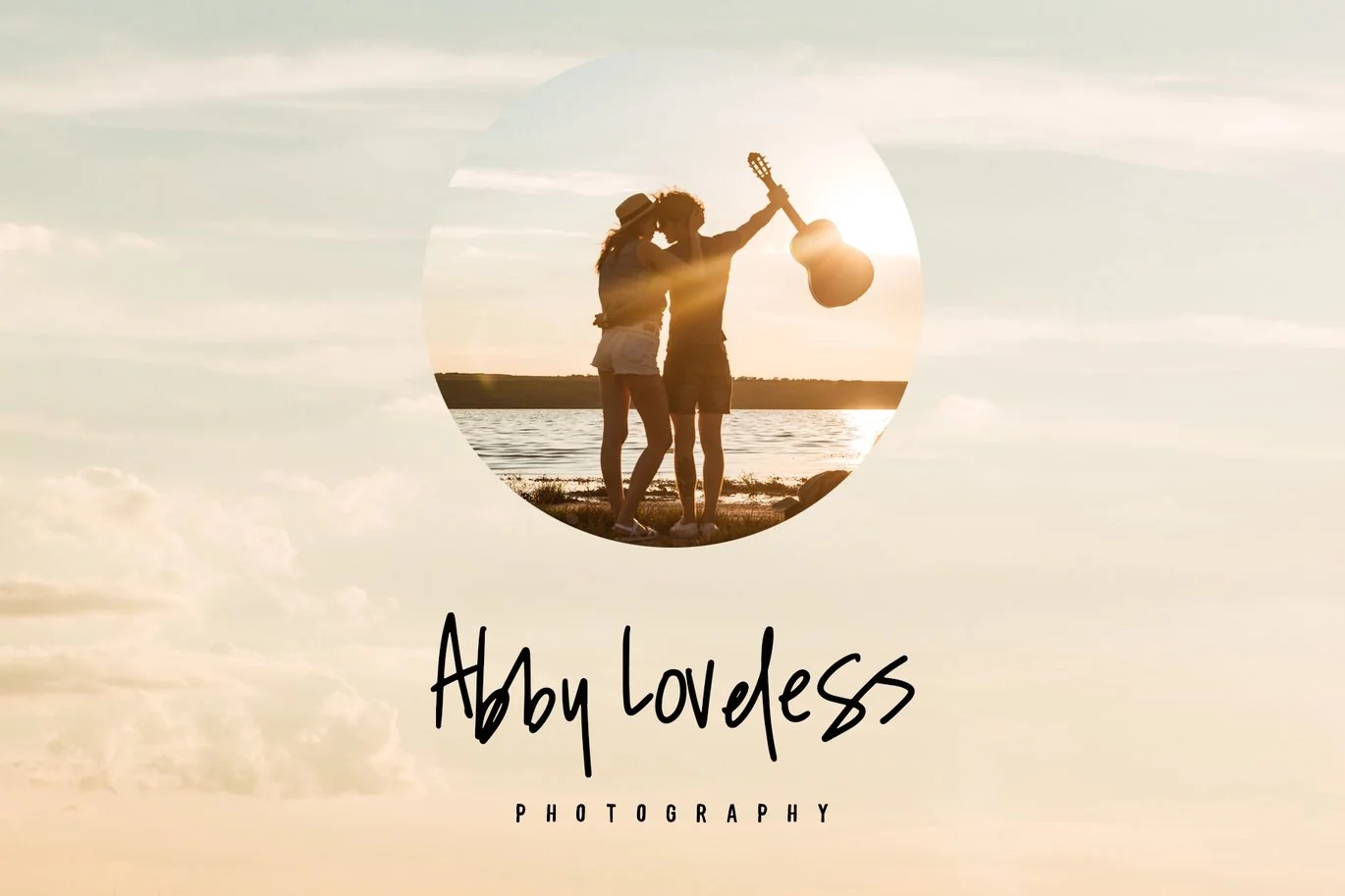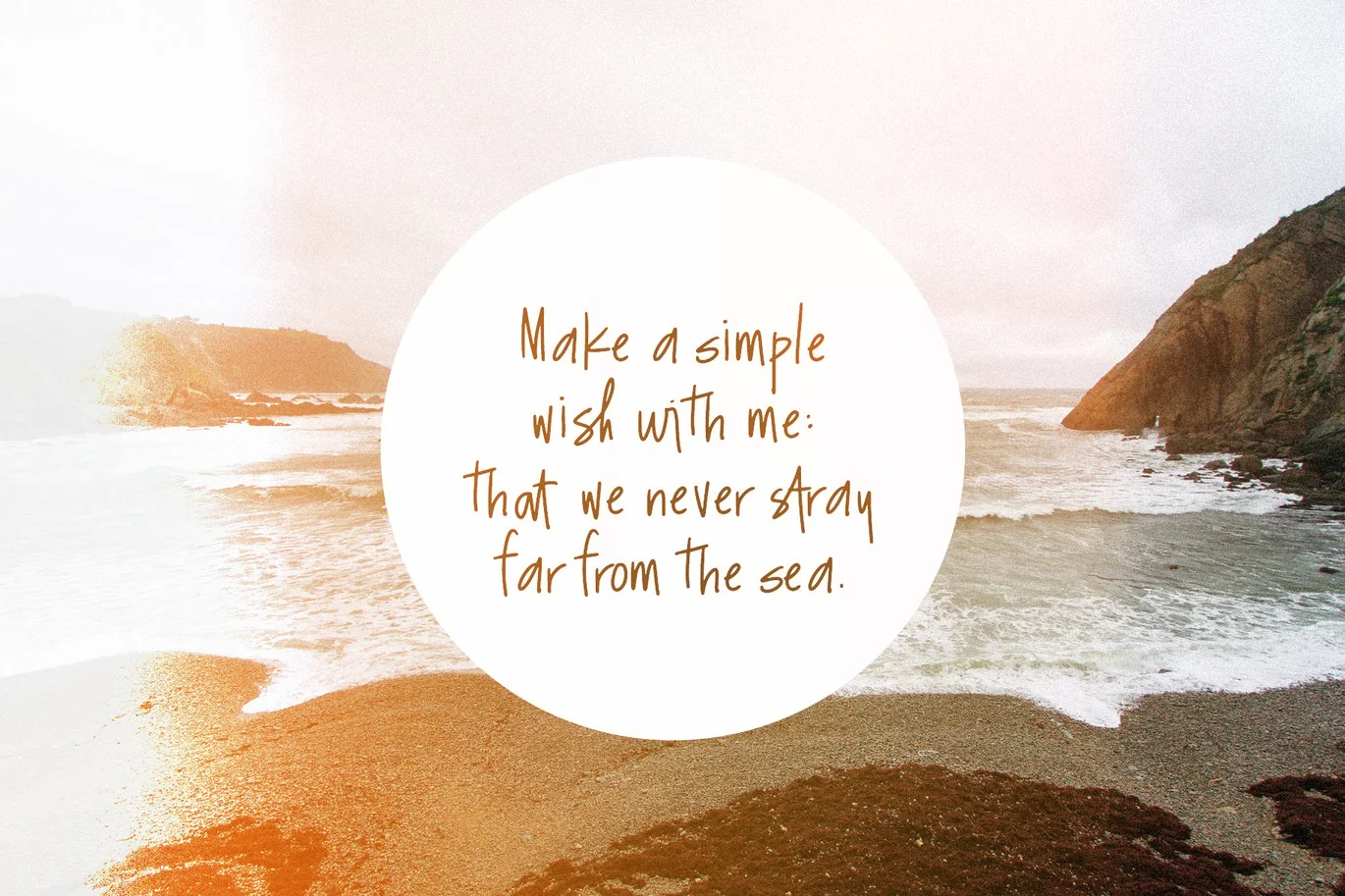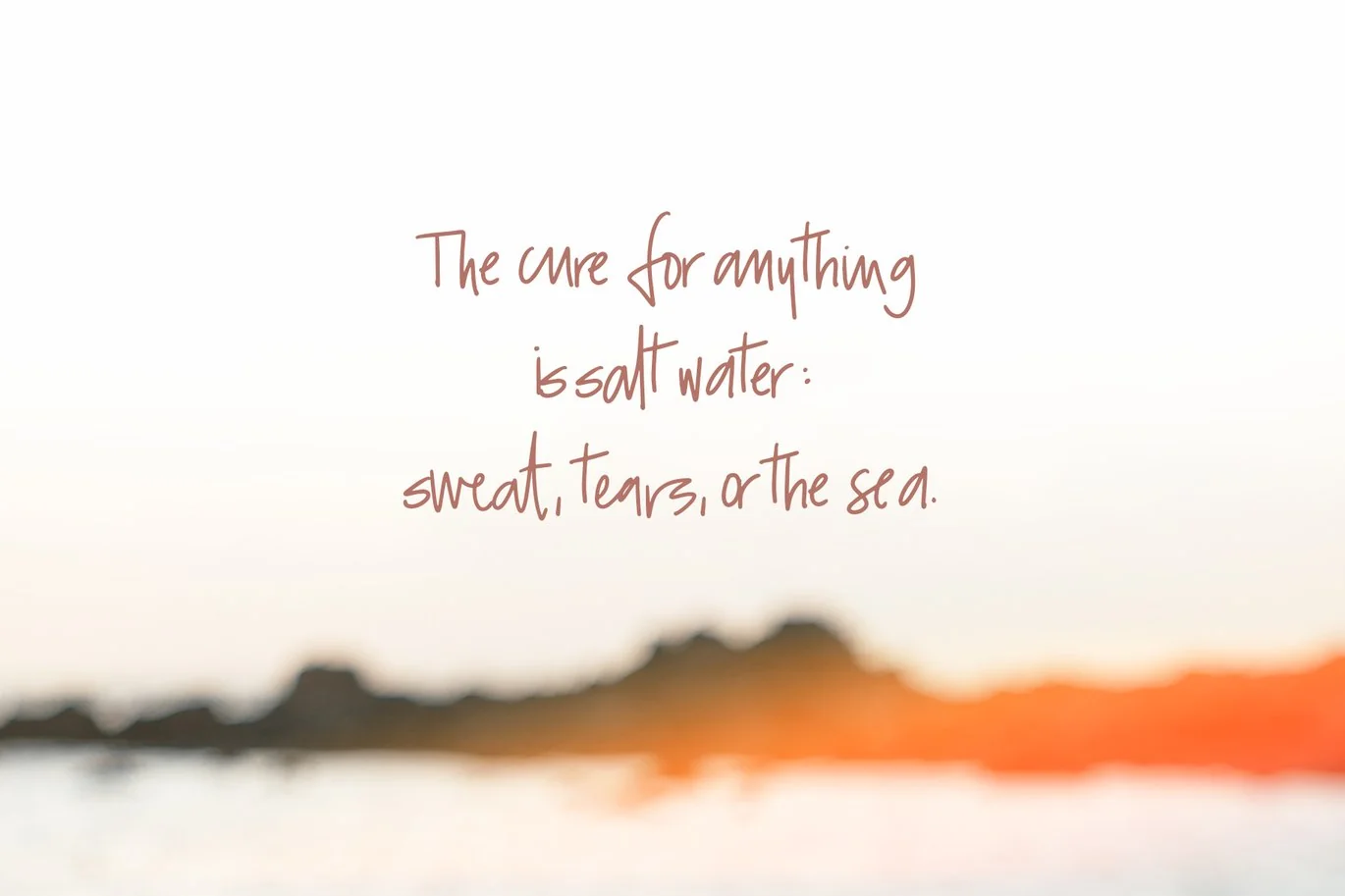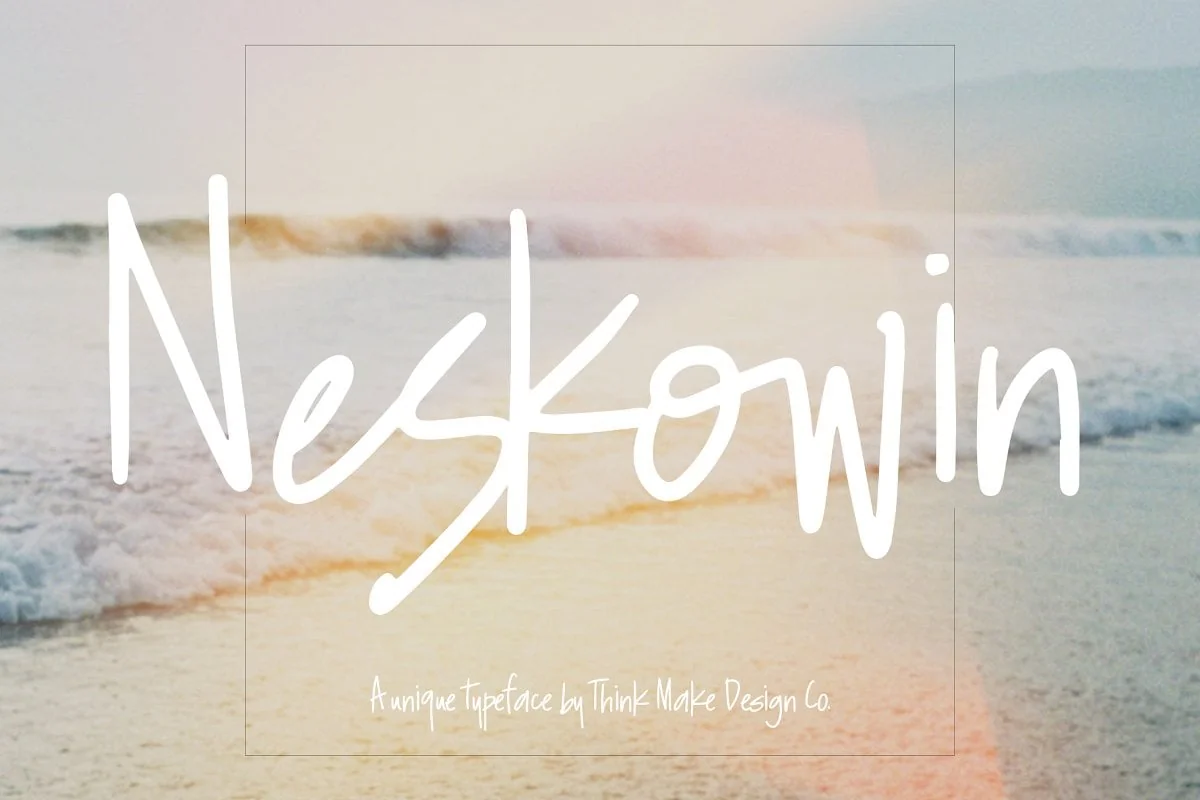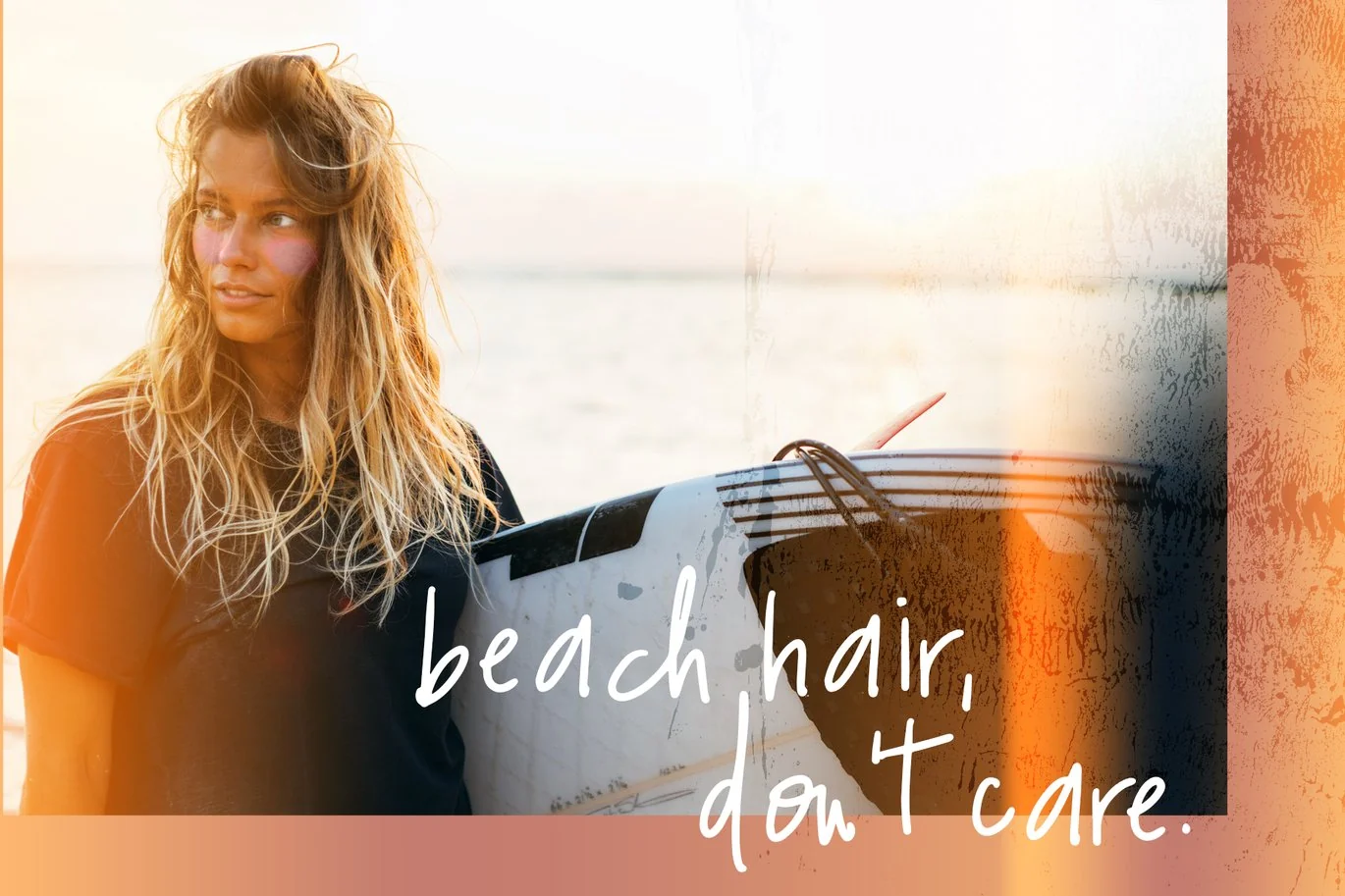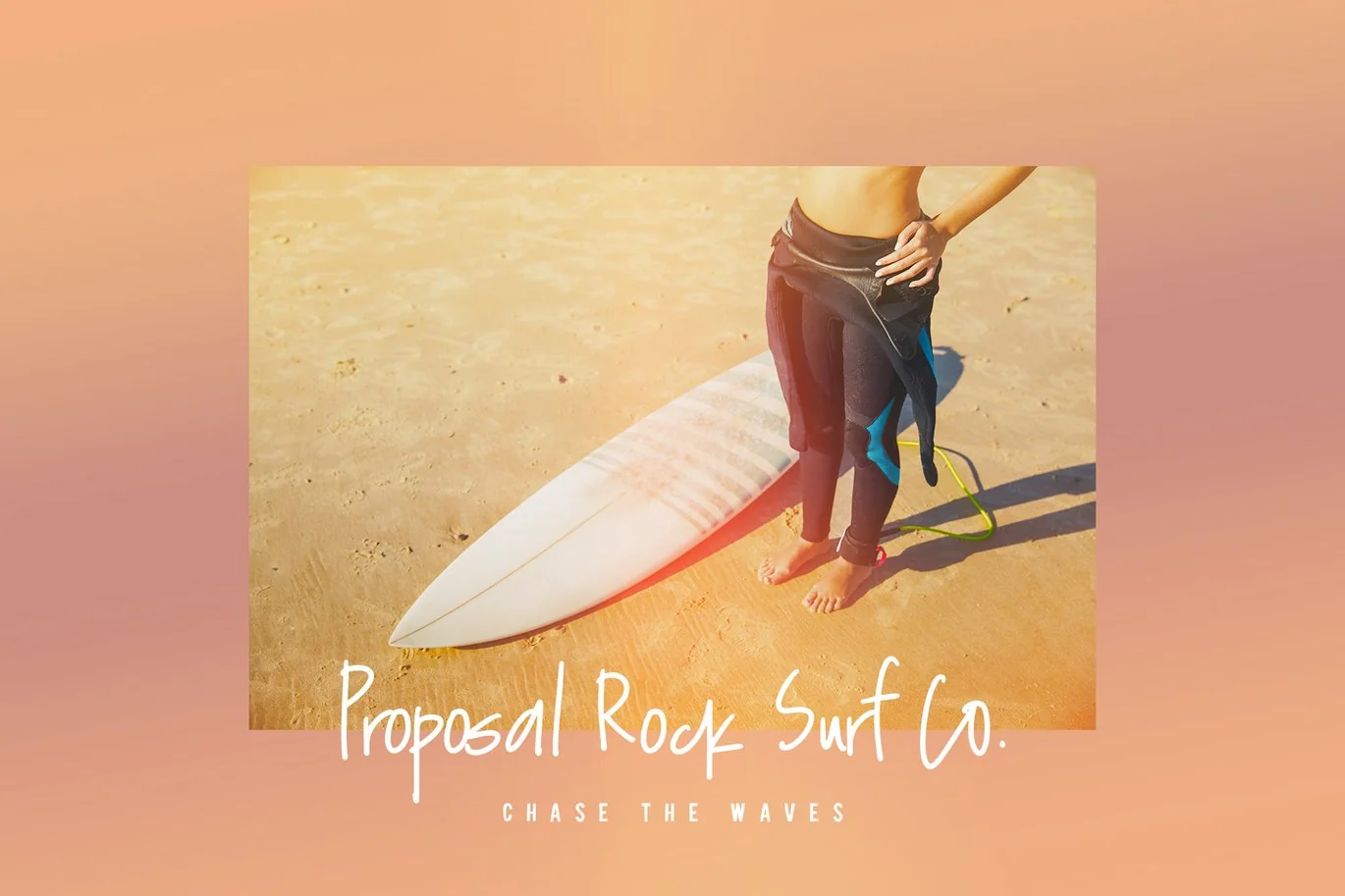
Neskowin Font + Fun Ligatures
Neskowin is a chic yet casual handmade font that is perfect for any modern design including logo, branding, posters, wedding invitations, and websites.
Includes over 75 handwritten ligatures that help create a natural look that is super popular right now in both big commercial and small personal design.